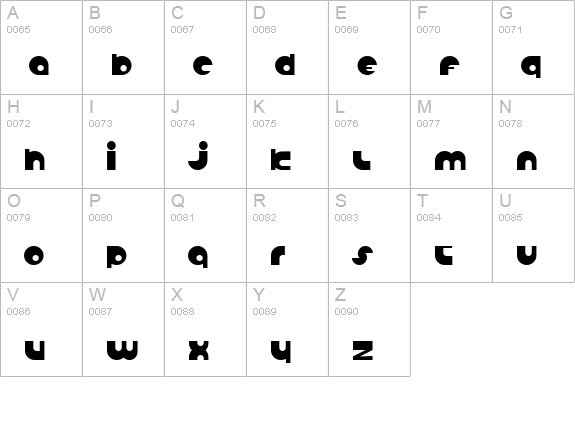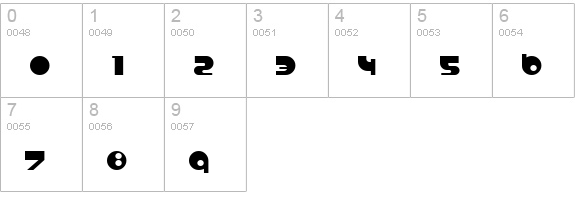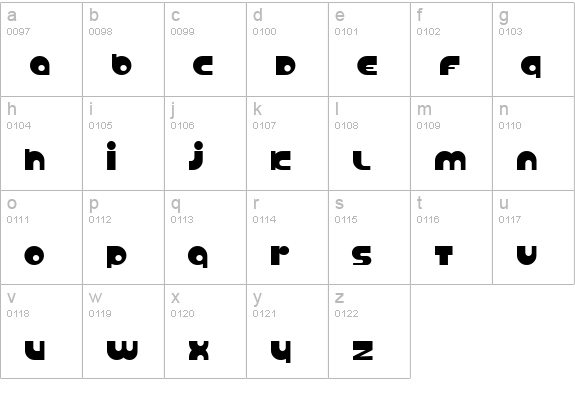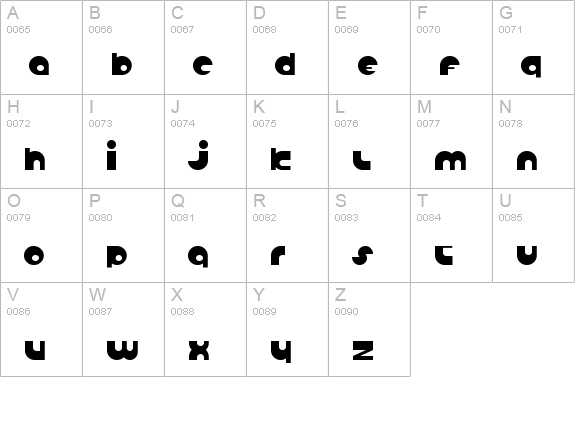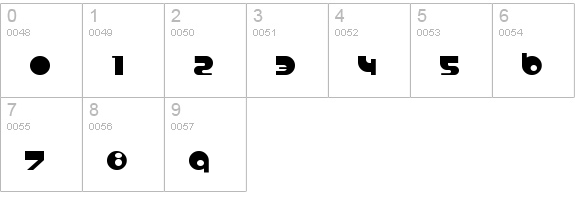
Anabolic Spheroid Font Details
Anabolic Spheroid is a modern and sleek font that exudes strength and dynamism. Its bold and rounded letterforms give off a sense of energy and power, making it perfect for projects that require a bold statement. This font is versatile and can be used for a variety of design applications, from posters to logos to branding materials. Anabolic Spheroid is not only visually striking but also easy to read, making it a practical choice for both print and digital projects. Its unique design will make your text stand out and leave a lasting impression on your audience. Best of all, Anabolic Spheroid is available for free download at FontsMarket.com. This means you can easily access this stunning font and use it in your projects without any cost. Don't miss out on the opportunity to enhance your designs with the captivating Anabolic Spheroid font today!